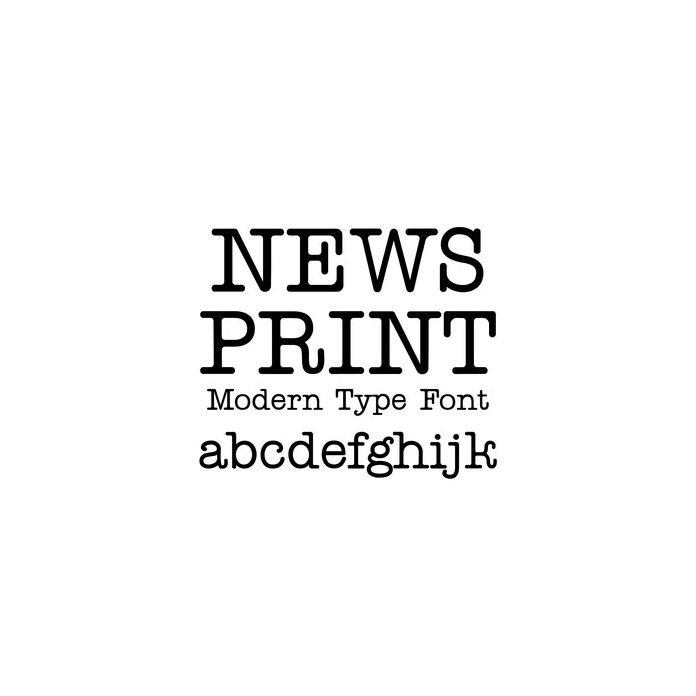
This is a smoother and a more modern take on your traditional typewriter font. Perfect for social media posts, merchandise and graphic designs. This font gives you a traditional look, but clean enough to not be too busy. Includes uppercase, lowercase, numbers and punctuation.